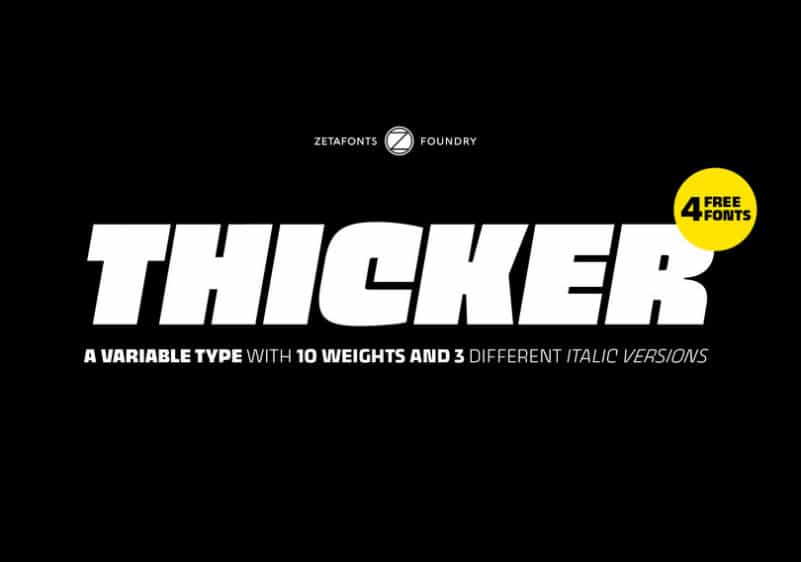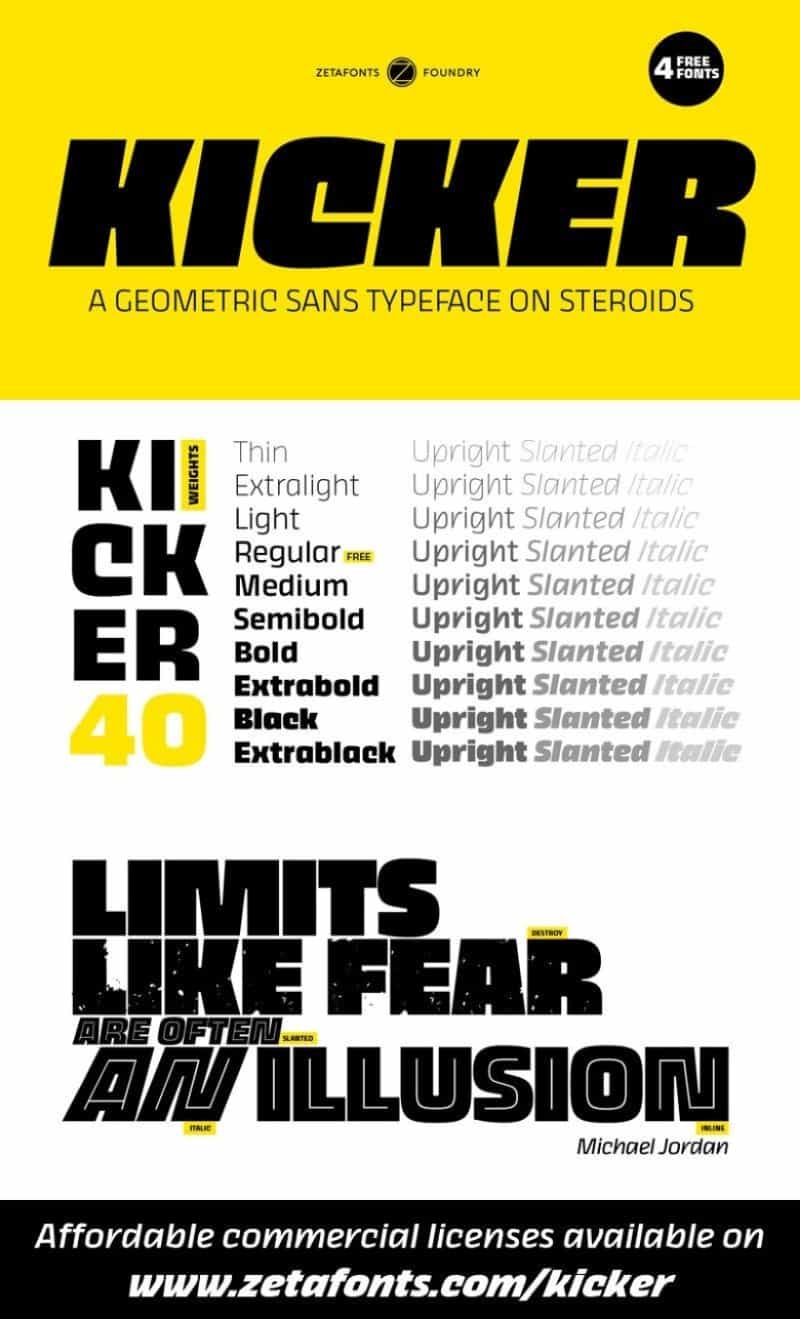
Now Kicker Sans Serif Family is here! It was drawn by Francesco Canovaro and Andrea Tartarelli with Zetafonts. It has 982 glyphs, 44 typefaces and it can be written in 218 languages. This extra-sans typeface that was first designed in the muscular extreme lack of weight with high-power dynamic shapes used in sports communication and later on developed to have some vintage-inspired proportions and a slightly squared look is now eponymous with retro-futurism.